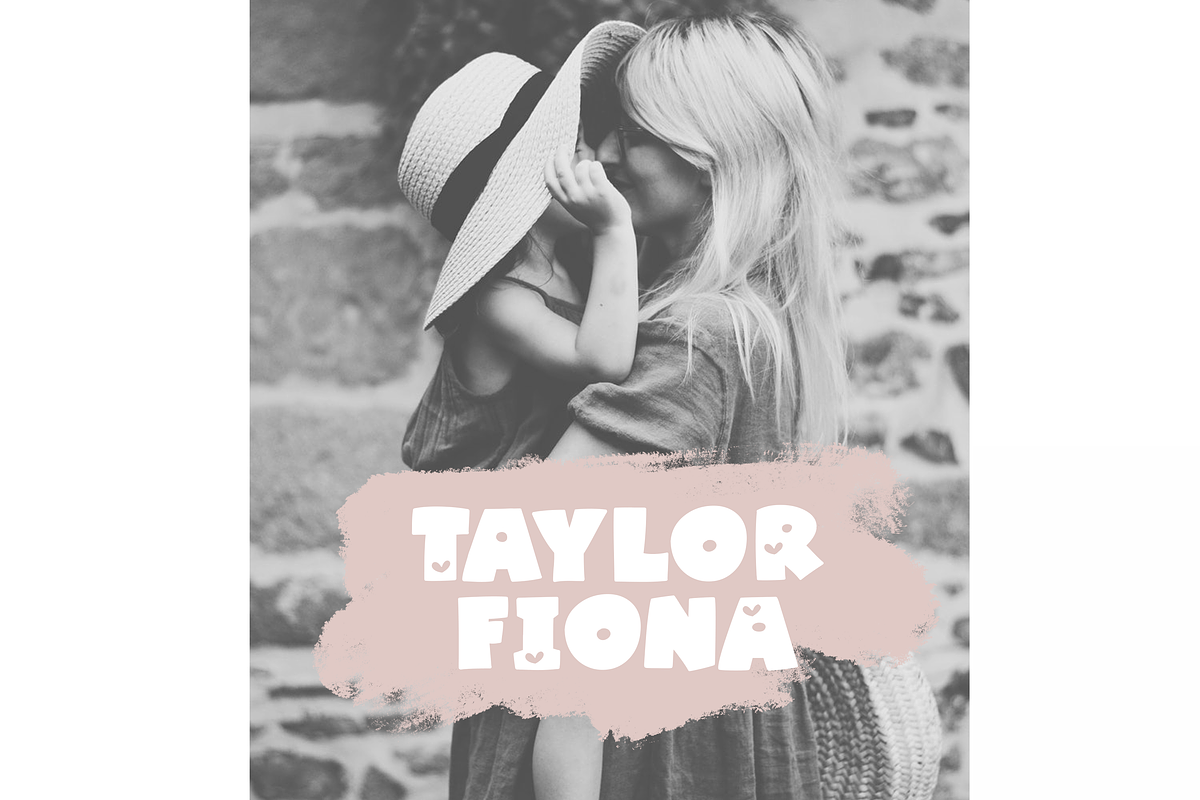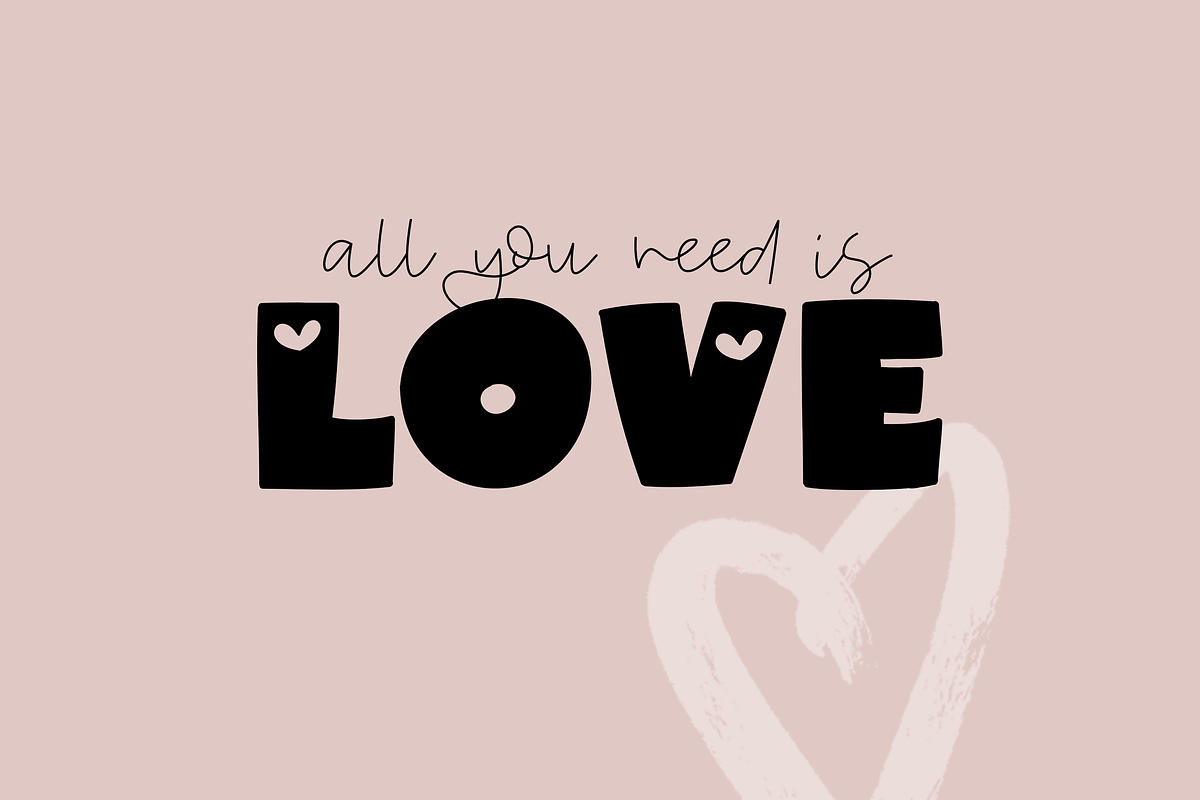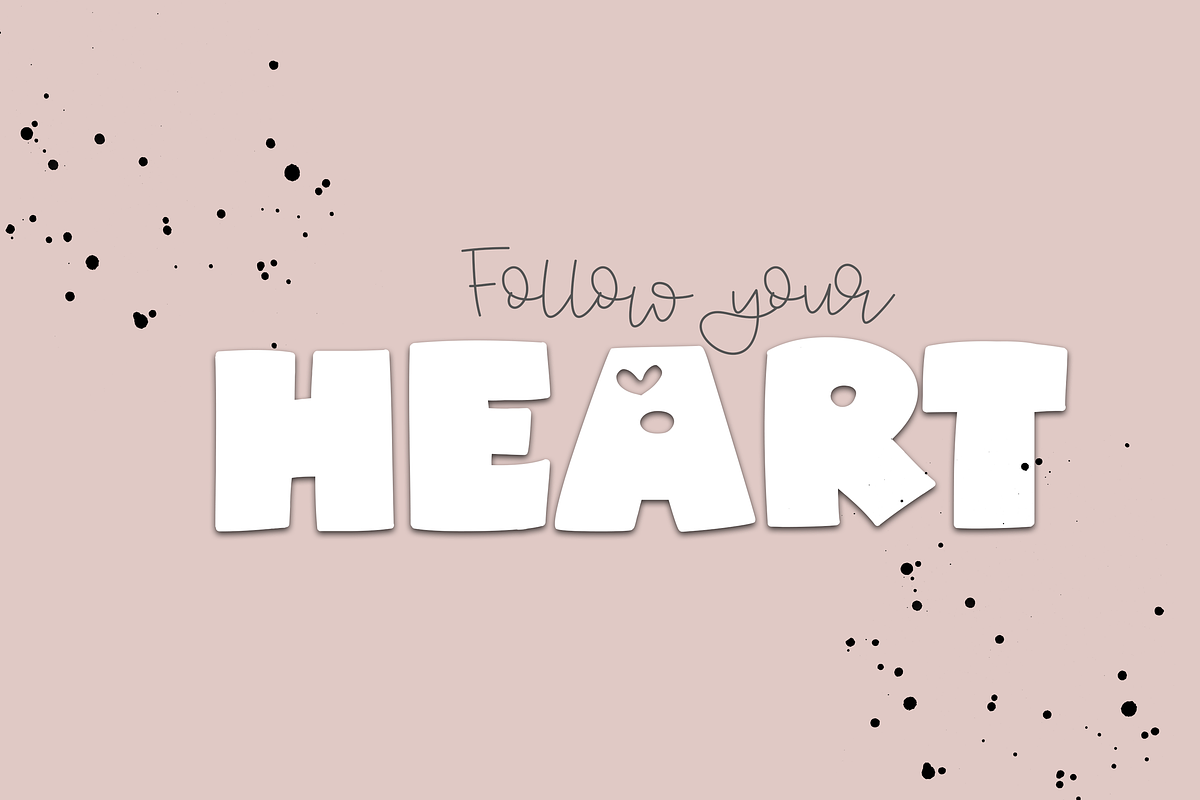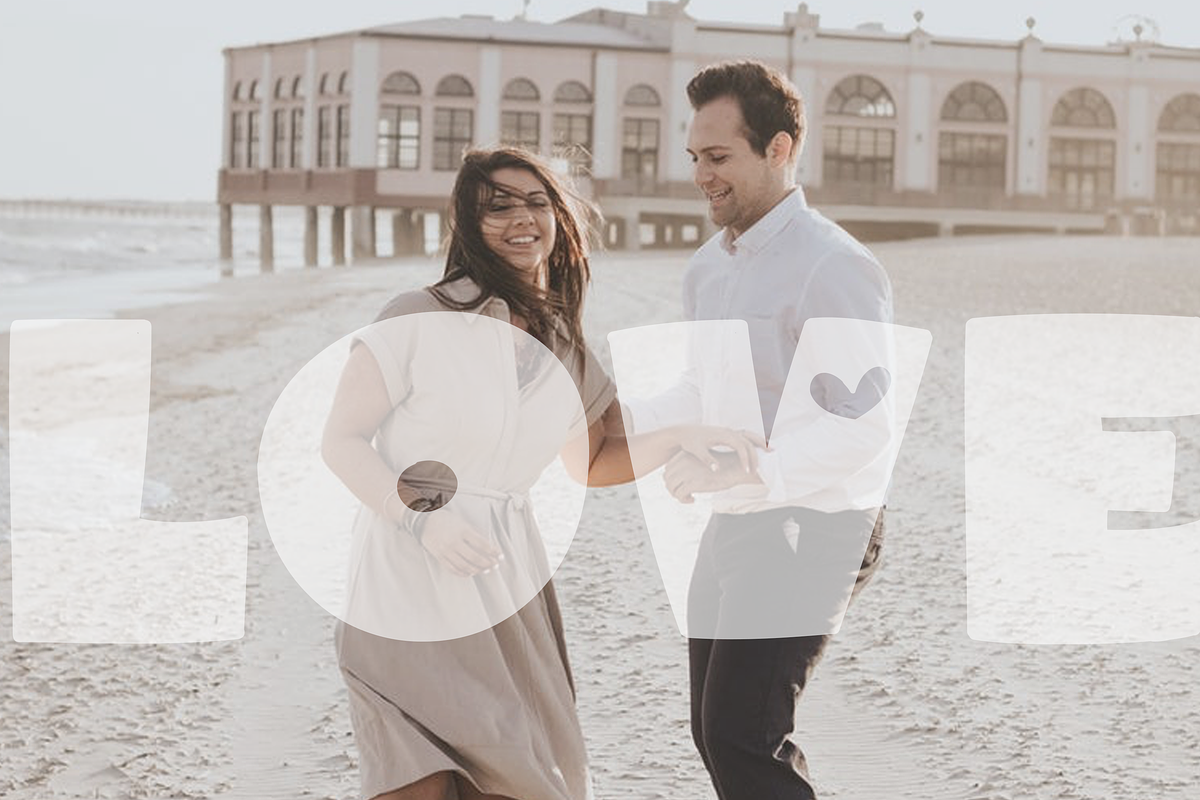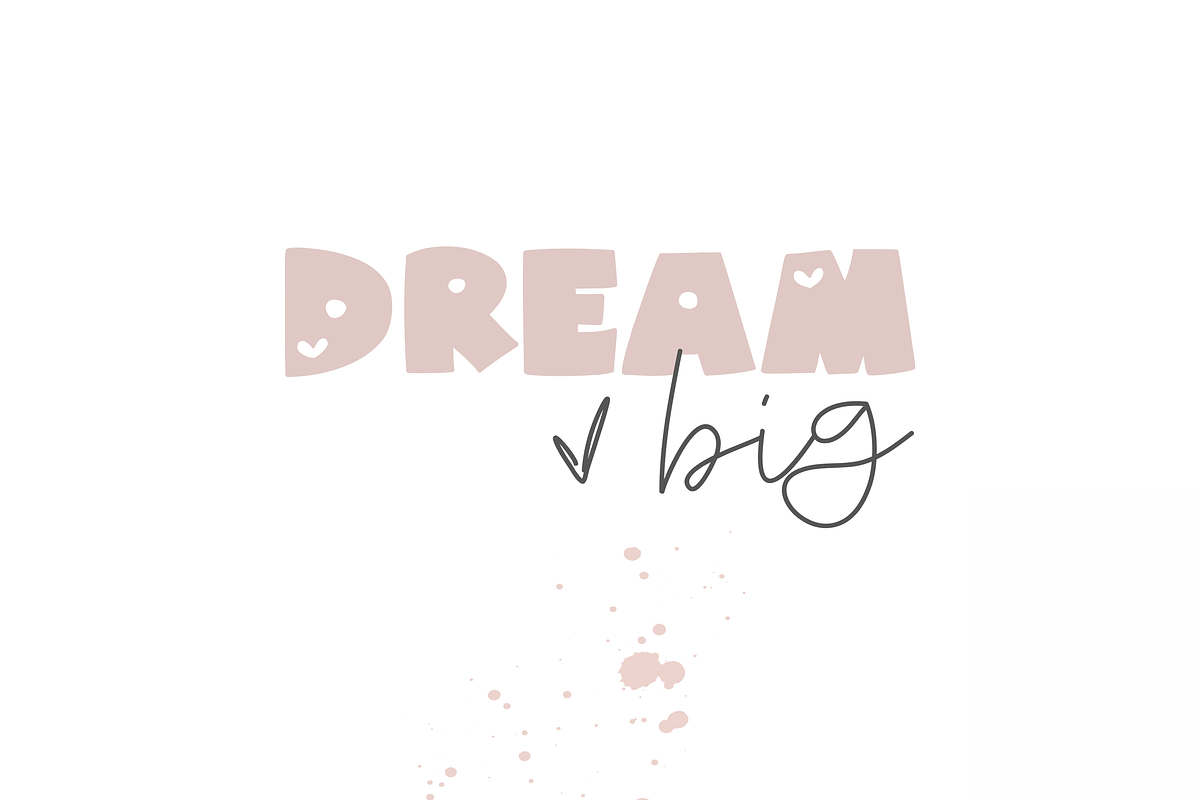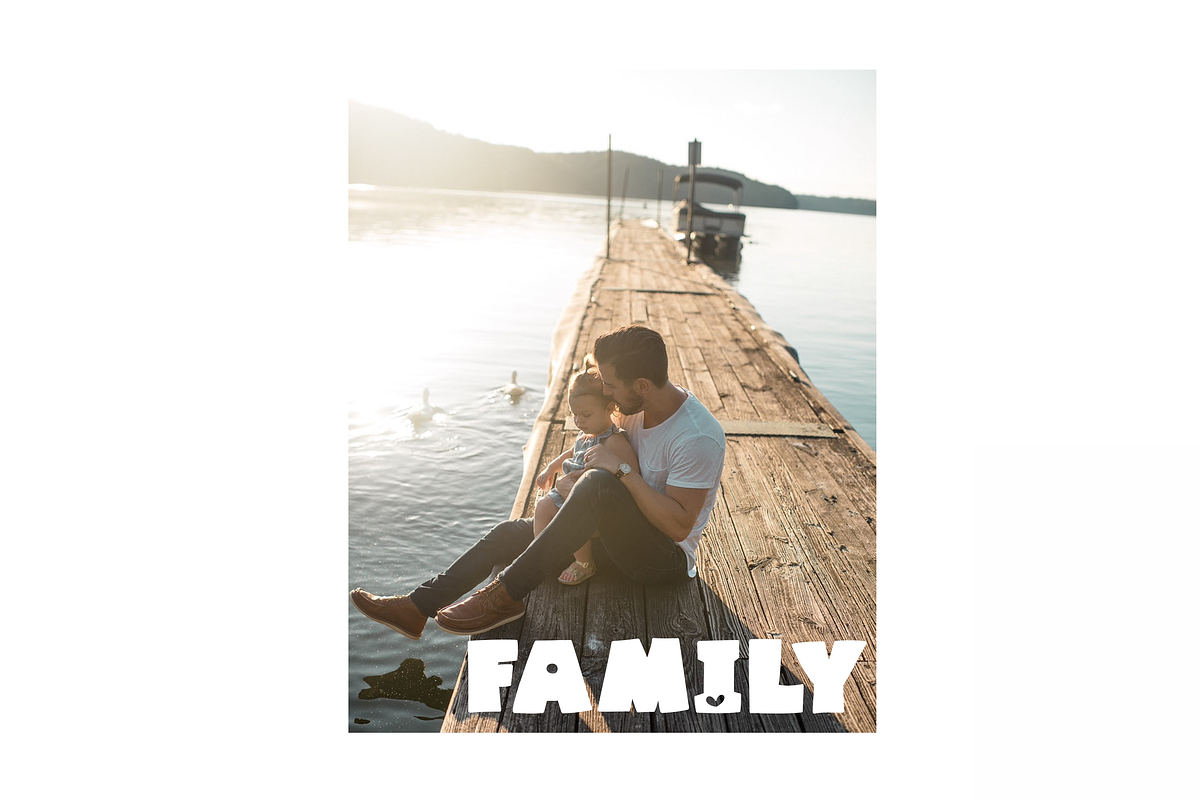
Cloud Nine - Bold Handwritten Font
Cloud Nineis a fun and bold handwritten font.
This font is perfect for quotes, headings, blogs, logos, invitations and more!
Cloud Nine - Bold Handwritten Font by KA Designs fits naturally into Branding, posters, packaging, typography.